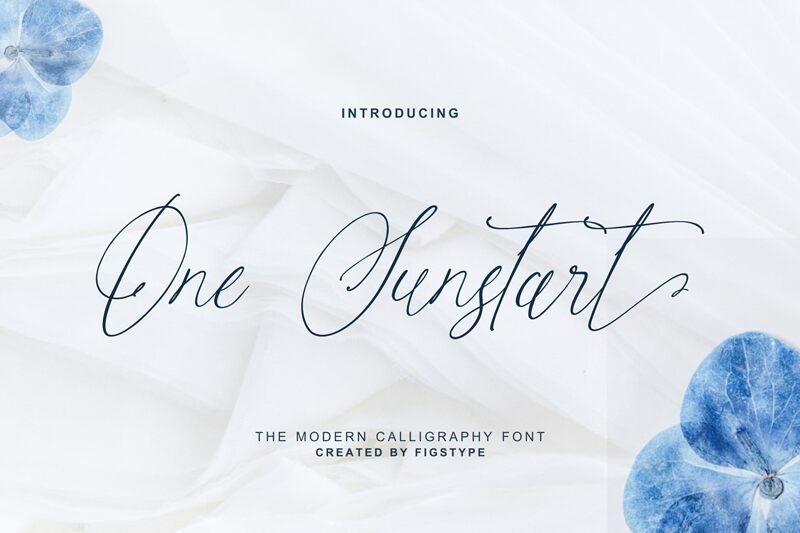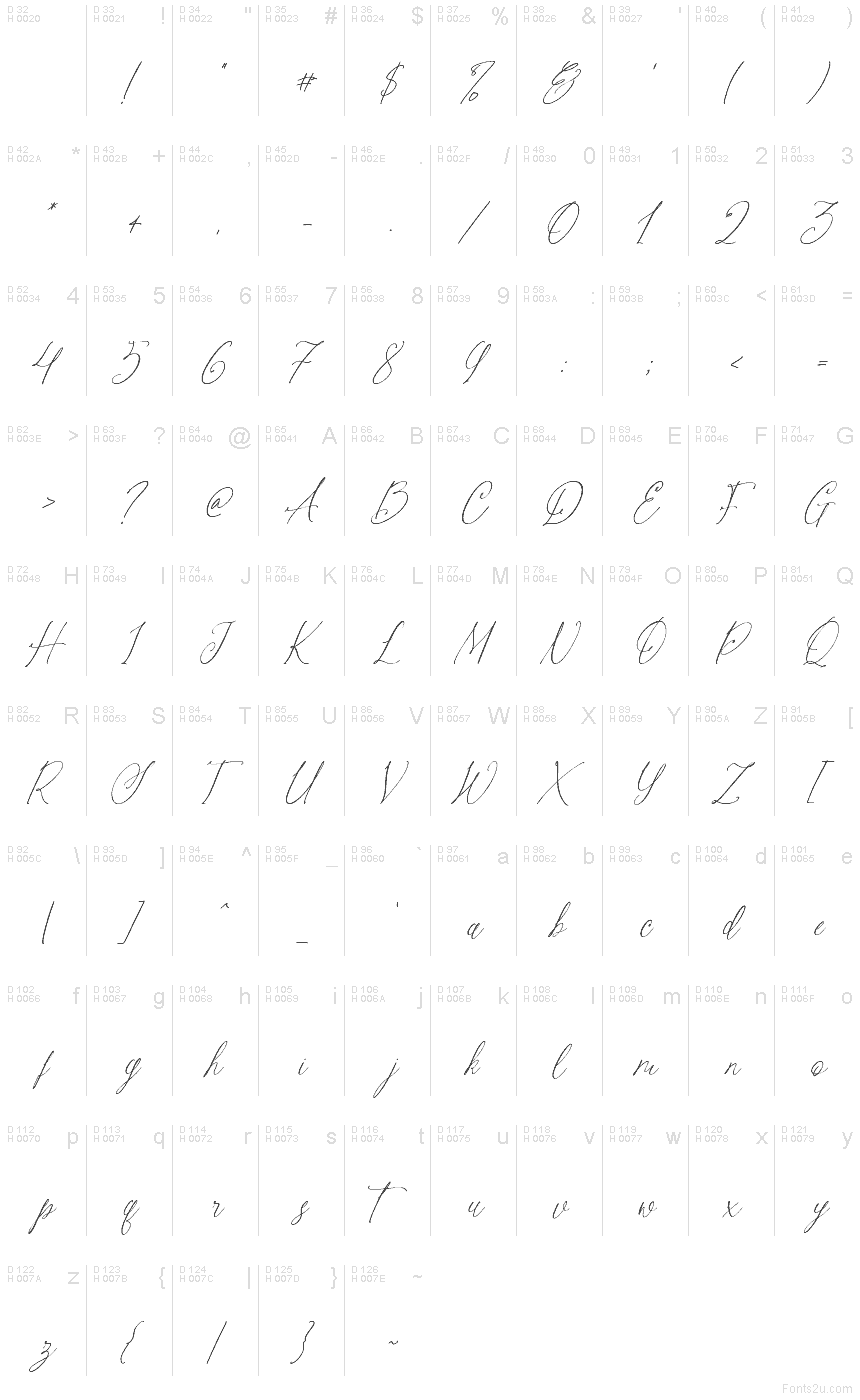
One Sunstart font by Figstype is a free calligraphy typeface with a gossamer touch-filament‑thin strokes, roomy loops, and easy, offhand sway that reads like a quick signature on fine paper. Its airy rhythm and extended swashes breathe space into a layout, delivering elegance without the syrupy weight many scripts carry.
Using One Sunstart, you’ll shine on wedding invitations, signature logos, perfume or skincare packaging, social media overlays, editorial pull quotes, and boutique branding. The relaxed spacing keeps it legible at larger sizes while the ink‑kissed texture adds charm up close. For balance, pair this free font with a quiet light sans or a restrained small‑caps serif to anchor the flourish.
One Sunstart